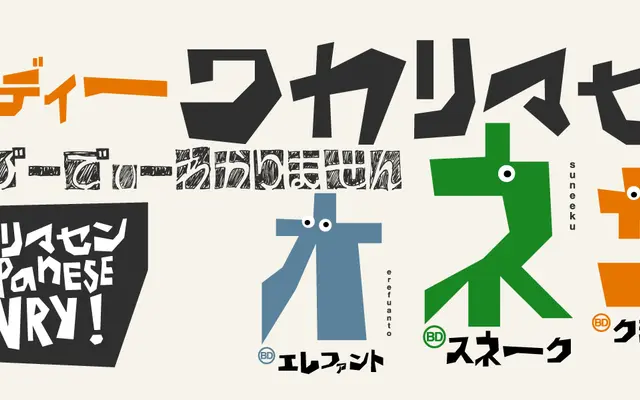
BD Wakarimasen
Type Different · 2011
A Japanese-only typeface combining two contrasting kana styles, Hiragana and Katakana, with no Latin character support whatsoever.
Originally released in 2011 as two separate fonts (BD Hiragana Kuro and BD Wakarimasu), the family was consolidated under the BD Wakarimasen name. The two kana styles are designed to create visual contrast when mixed in Japanese text, giving designers a built-in typographic tension between Hiragana and Katakana passages. Basic punctuation and CJK symbols are included alongside a stylistic set for alternate punctuation forms.
A display typeface covering only Japanese Hiragana and Katakana scripts, combining two contrasting styles (formerly BD Hiragana Kuro and BD Wakarimasu) for use in Japanese-language typesetting. No Latin character support is included.